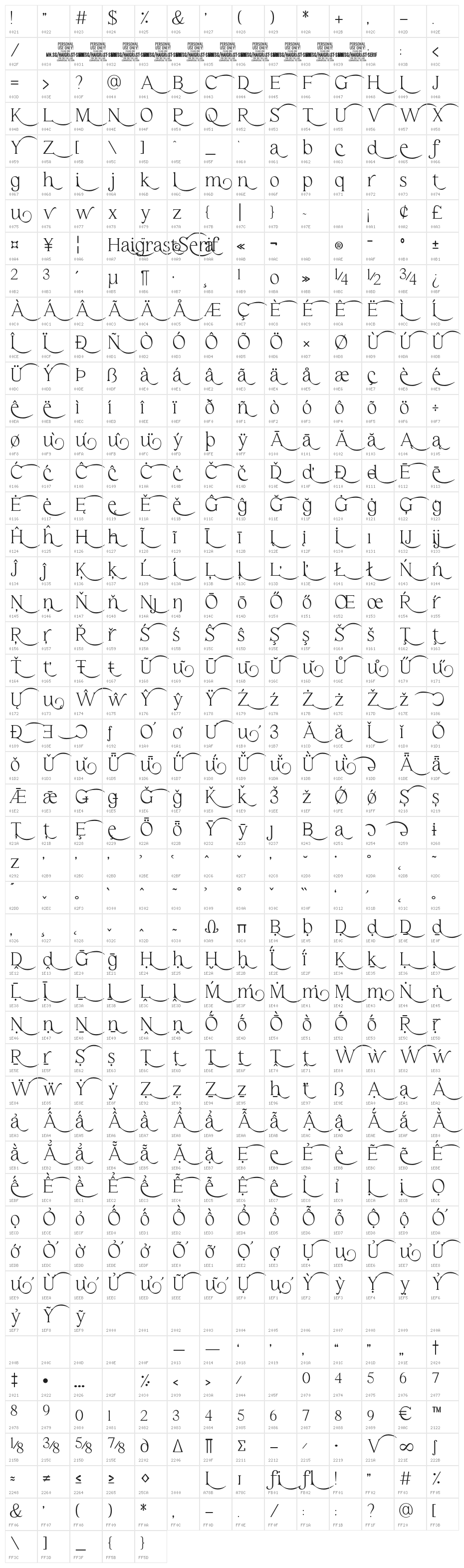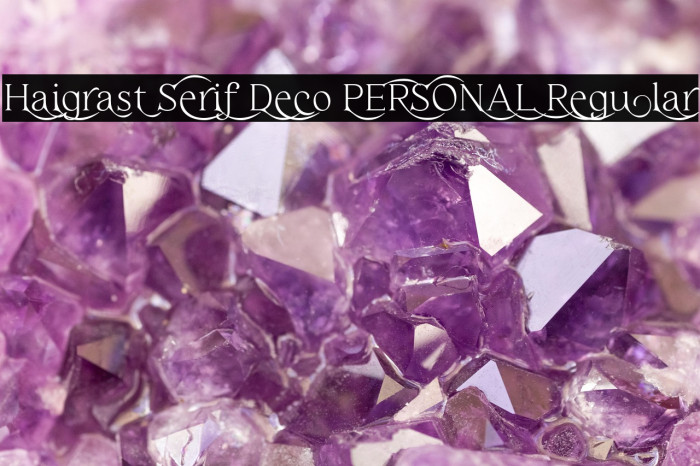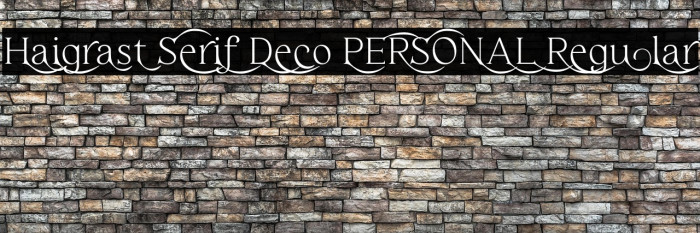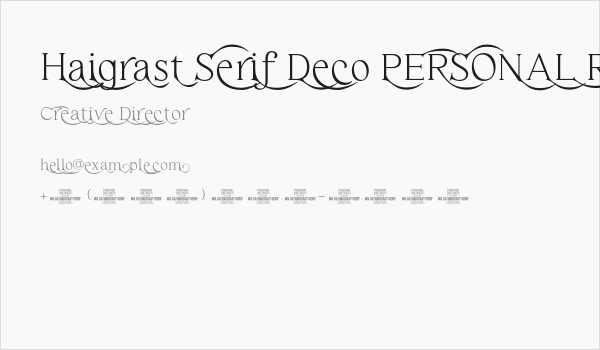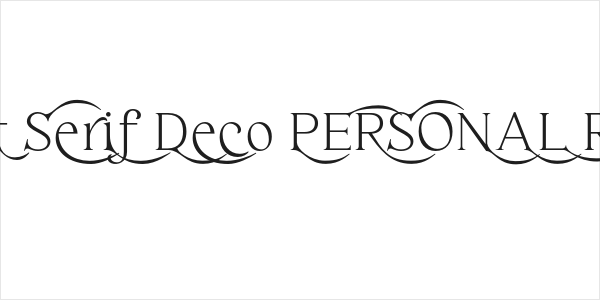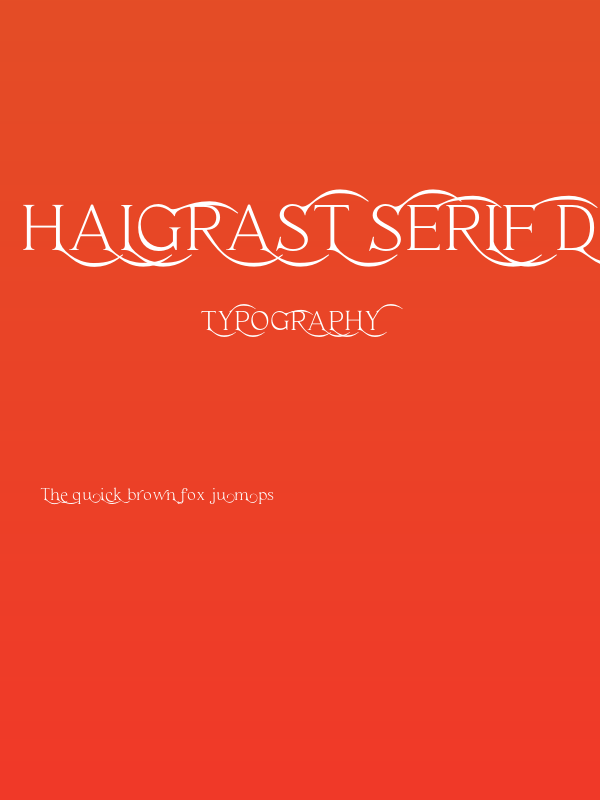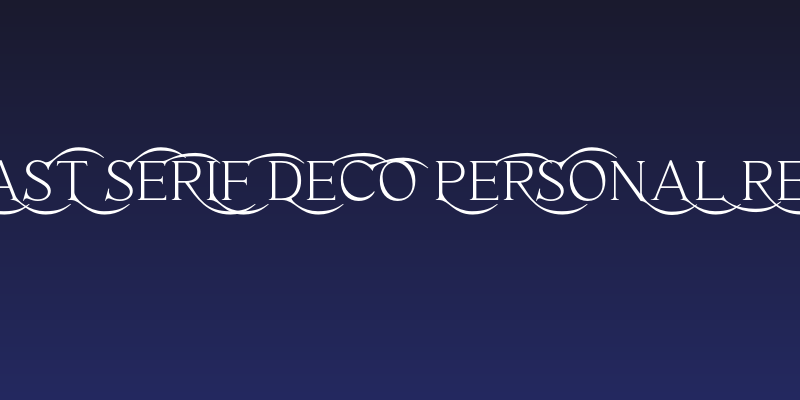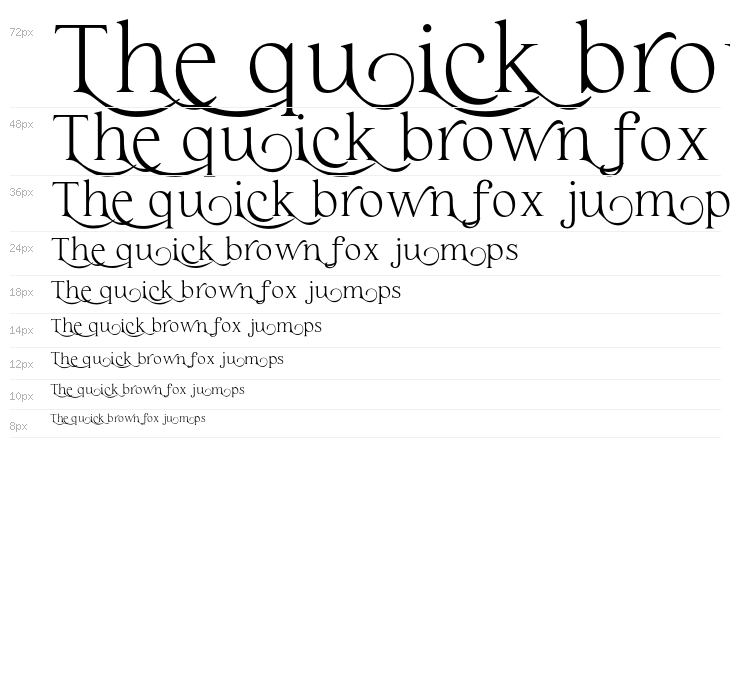
Haigrast Serif Deco PERSONAL Regular Font
Haigrast Serif Deco PERSONAL Regular Description
This font features a unique blend of elegance and decorative flair, characterized by its flowing, ornate serifs that extend gracefully from each letter. The uppercase letters are particularly striking, with elaborate curves that add a sense of movement and sophistication. The lowercase letters maintain a consistent style, offering a harmonious balance between readability and artistic expression. The numerals and special characters are designed with the same attention to detail, ensuring a cohesive look across all text elements. This font is ideal for projects that require a touch of luxury and creativity.